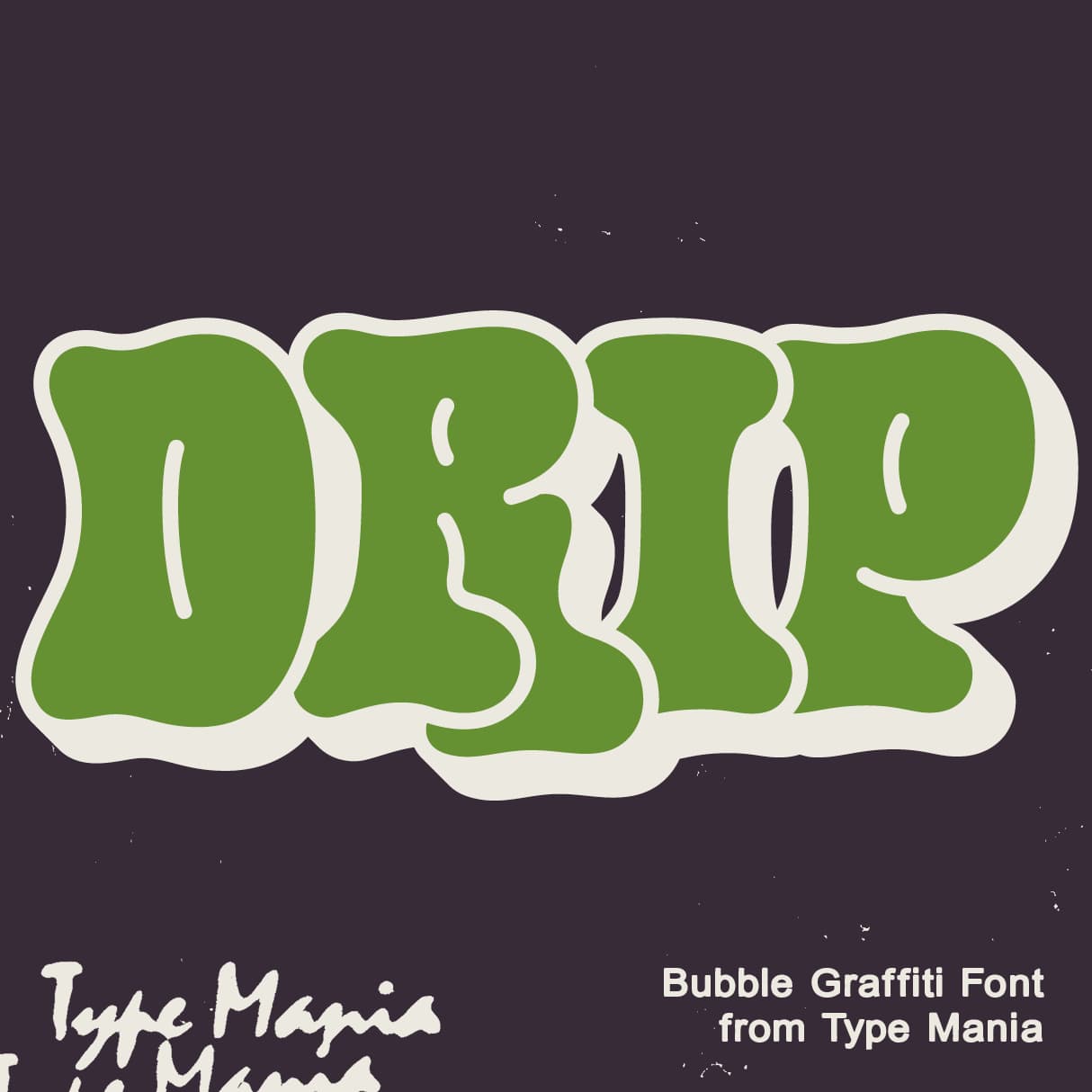
<p>Meet <strong>Drip TM</strong>, a heavy graffiti font with bubbly styles. Suited for short n sweet statements, see if it works for your project ×͜×</p><p></p><p><strong>Zip includes</strong></p><ul><li><p>OTF file</p></li><li><p>TTF file</p></li><li><p>WOFF2 file</p></li></ul><p></p><p><strong>Languages</strong></p><ul><li><p>Basic Latin</p></li><li><p>Western European</p></li><li><p>Euro</p></li><li><p>Central European</p></li><li><p>Pan African Latin</p></li></ul><p></p><p><em>Graphic Design is Easy (with Type Mania)®</em></p>